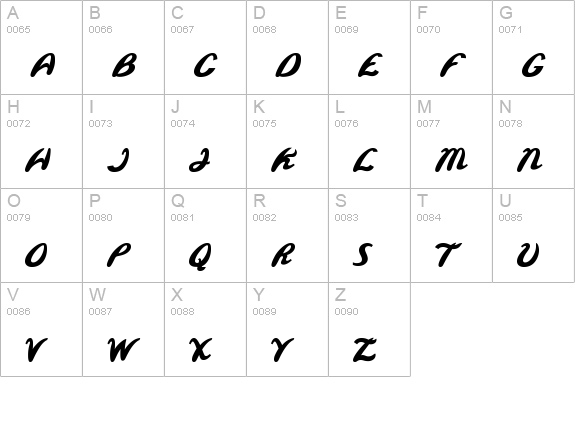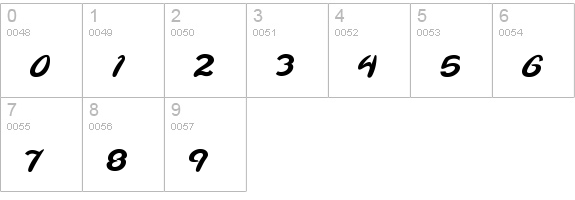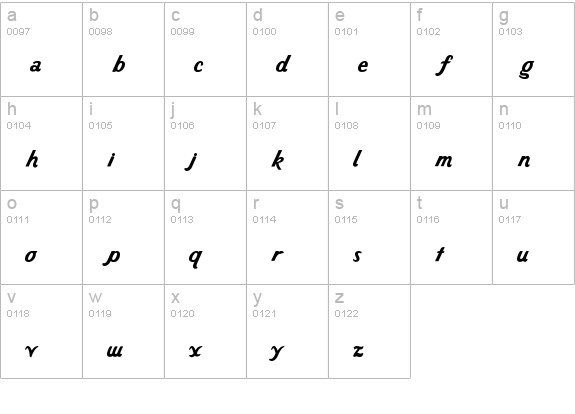
WildRide Font Details
Introducing WildRide font, a breathtaking display typeface that captures the untamed spirit of adventure and exhilaration. With its dynamic curves and rugged edges, this font embodies the thrill of the open road, inviting you to embark on a wild journey of creativity. Bold and daring, WildRide font commands attention with its unique and eye-catching design. Every letter is meticulously crafted to exude a sense of freedom and excitement, making it perfect for headlines, logos, posters, and any project that calls for a touch of adventure. What sets WildRide font apart is not only its striking aesthetics, but also its accessibility. Unlike many other fonts, WildRide is free and readily available to download at FontsMarket.com. This means that regardless of your budget or project size, you can easily incorporate this captivating typeface into your designs without any restrictions. Whether you're a graphic designer looking to add a dash of untamed energy to your work or a business owner seeking a distinctive brand identity, WildRide font is the ideal choice. Its versatility and powerful presence make it suitable for a wide range of applications, ensuring that your message will be delivered with impact and style. Embrace the wild side of typography with WildRide font and let your creativity run free. Download it now at FontsMarket.com and start adding a touch of adventure to your designs today. Get ready to experience the thrill of the ride like never before.